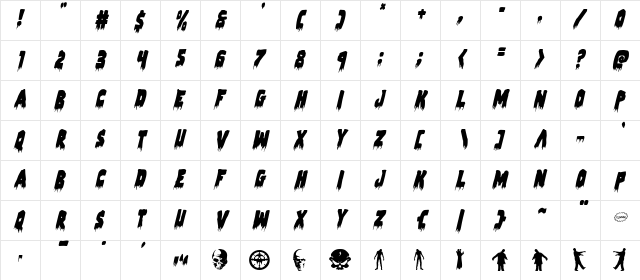
Zombie Control Condensed Italic Condensed Italic
Design Context for Zombie Control Condensed Italic Typeface
Zombie Control Condensed Italic is a composed and adaptable typeface that performs quietly and consistently across a wide range of design contexts. Its italic angle brings a sense of urgency and motion to the letterforms. Its narrow stance lets it pack a punch even in space-constrained designs.
Pro Tip: Use Zombie Control Condensed Italic for emphasis, pull quotes, and subheadings where its slanted energy can add rhythm to the layout.